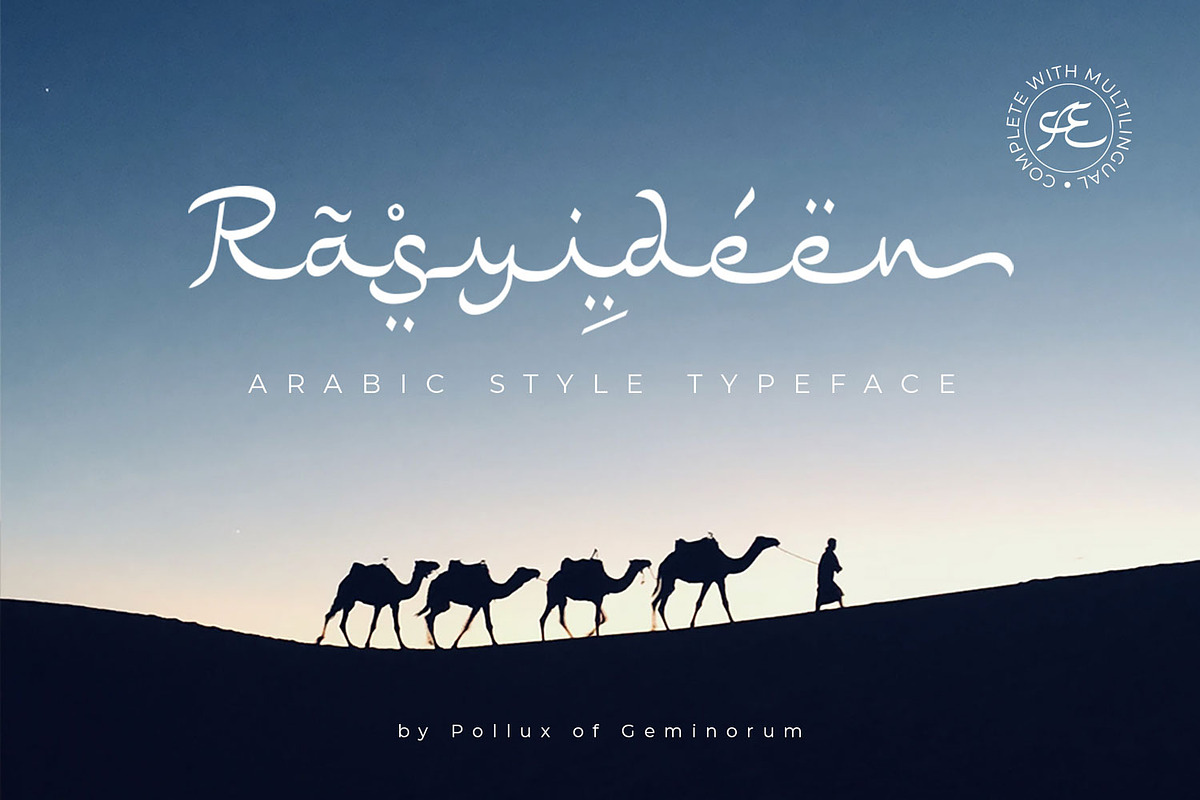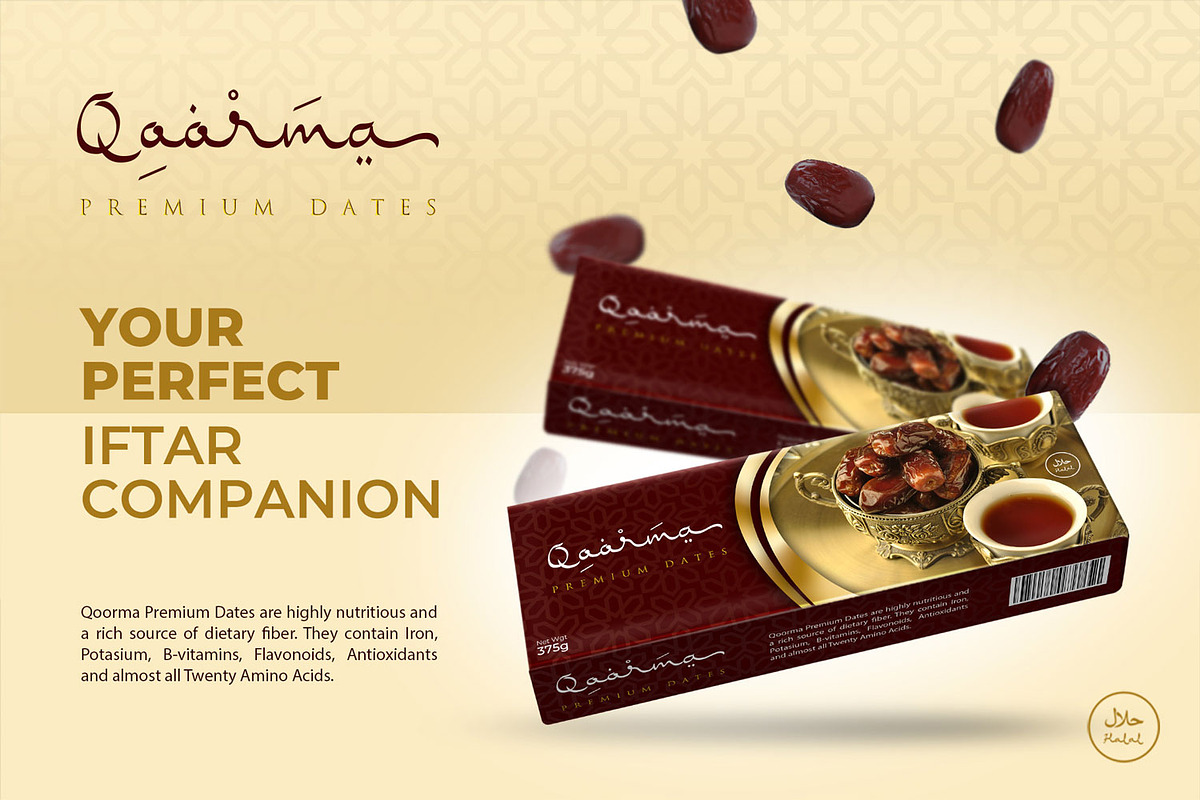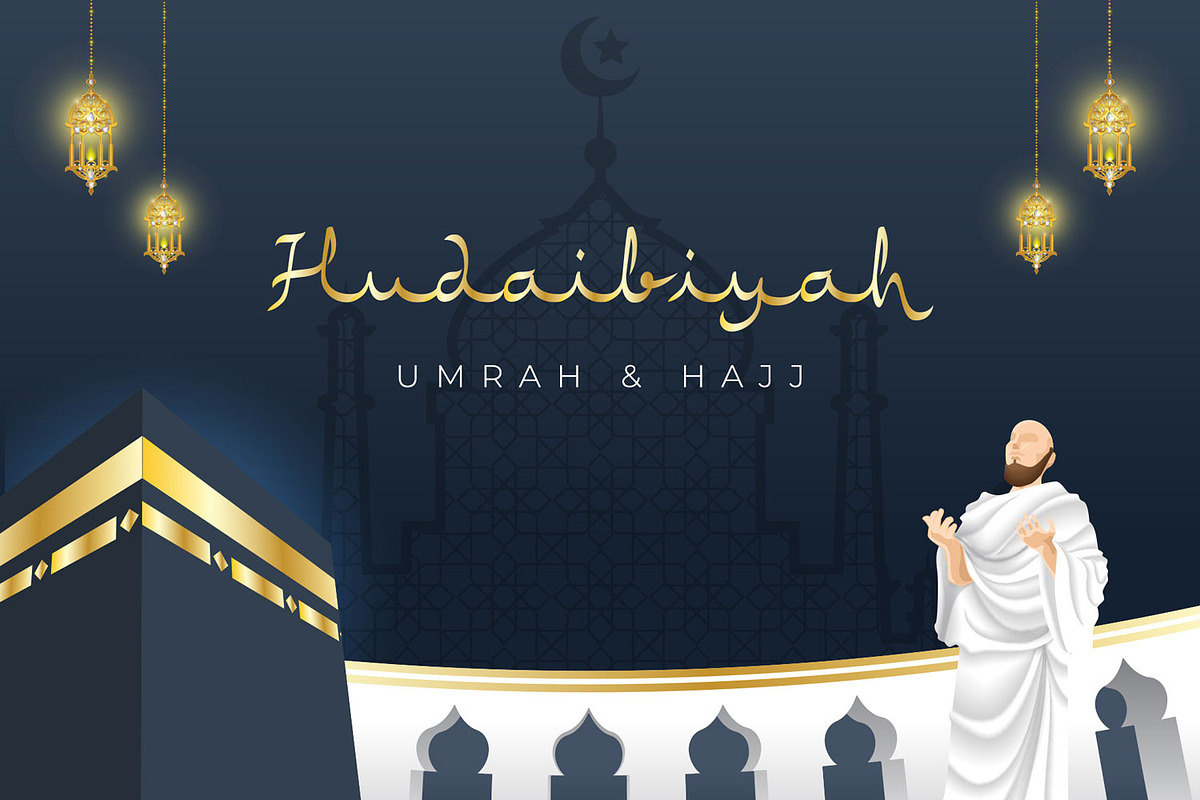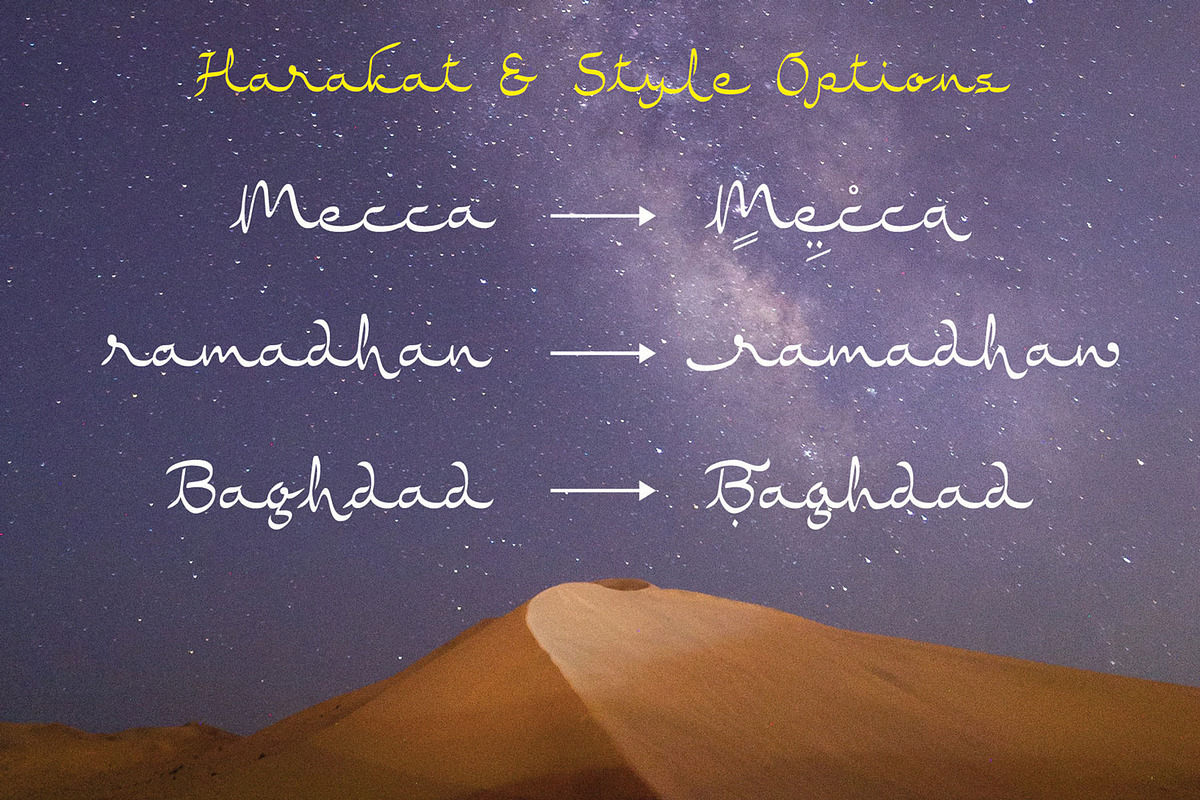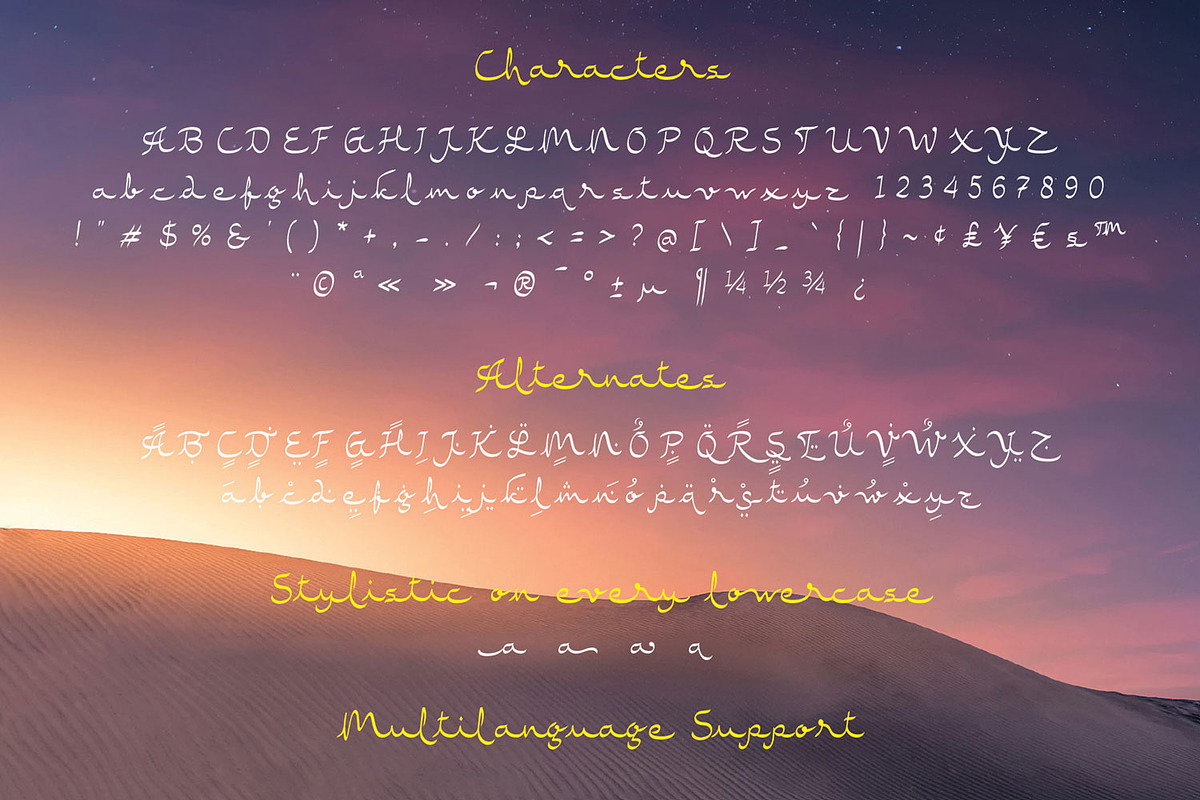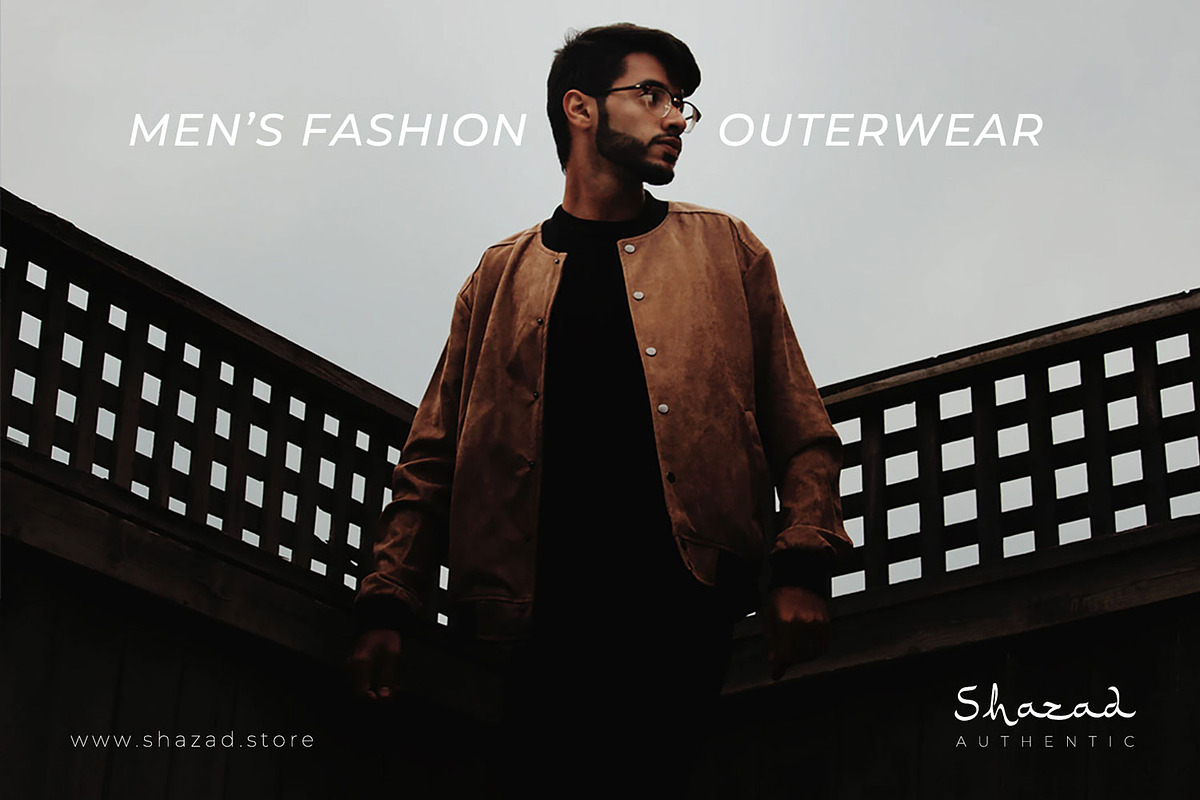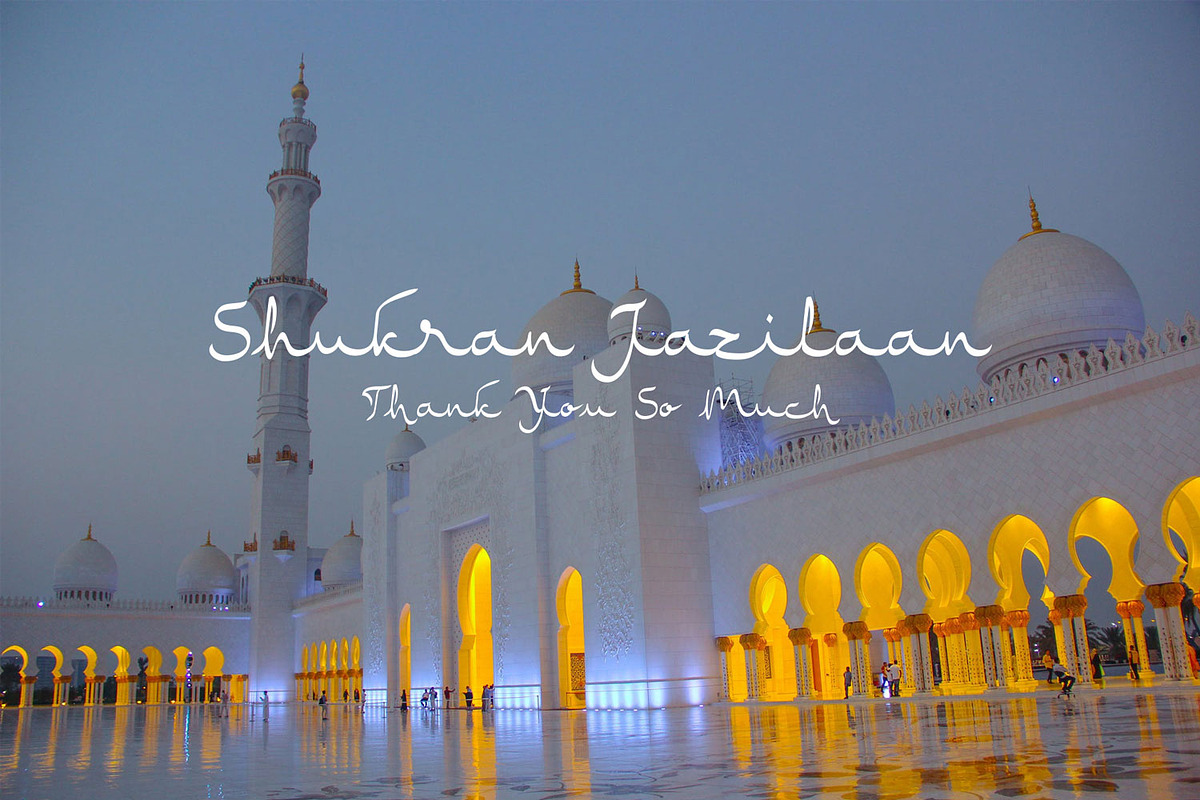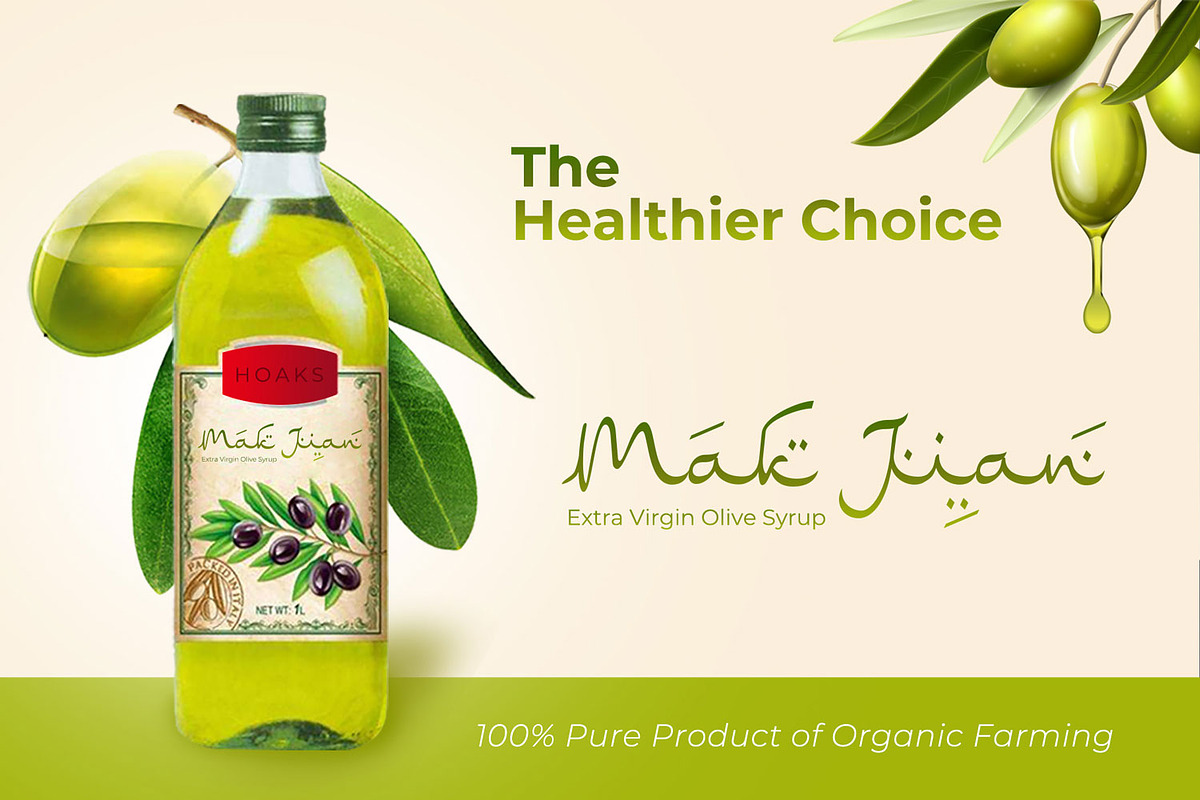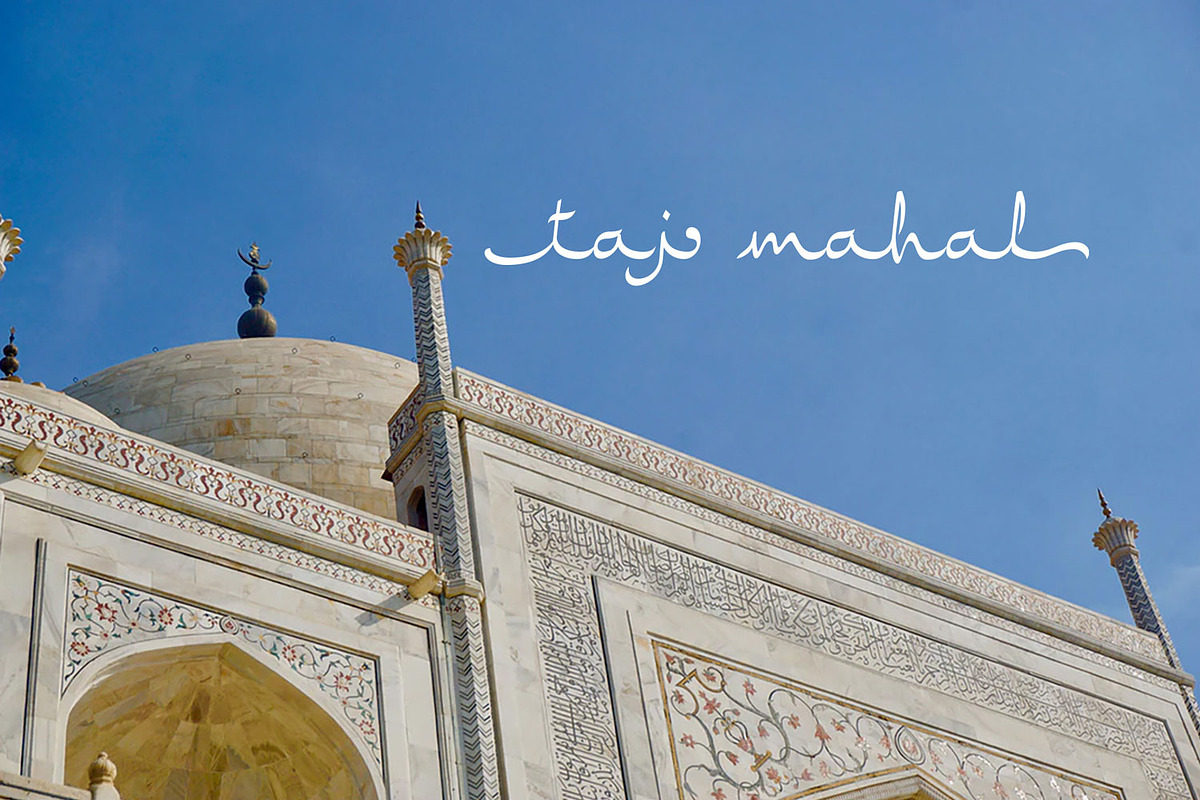
Rasyideen
Introducing Rasyideen, a unique font in Arabic style. Inspired by beautiful Arabian calligraphy, this font is suitable for any Islamic or Middle East content. Described by an elegant touch, perfect for your favorite projects. Fall in love with its incredibly distinct and timeless style and use it to create spectacular designs! Perfect for logo, branding, book cover, wedding invitation, poster, banner, flyer, video, TVC, etc. It has Open Type features so you have many style options (including harakat) that you can access from designing software with an open type panel.